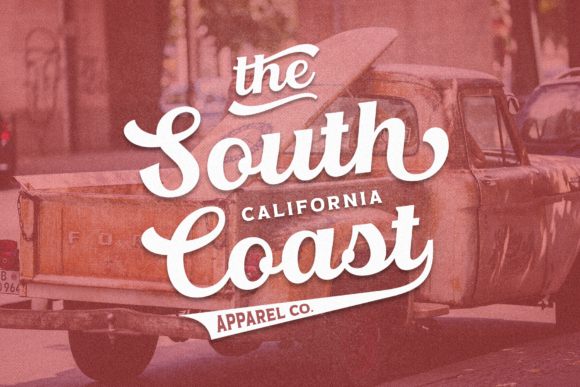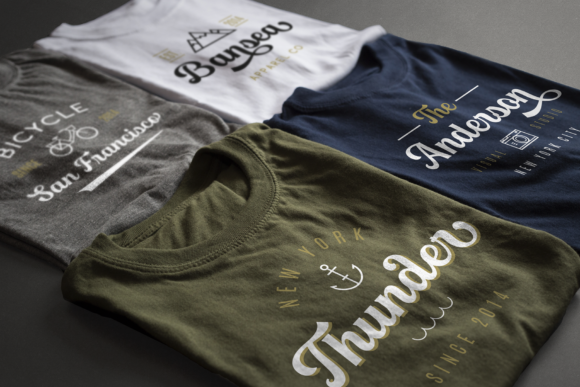
Landre Font
db-ku.com - Script & Handwritten -- Landre is a stylish and original handwritten font that fits perfectly for both modern and vintage designs.